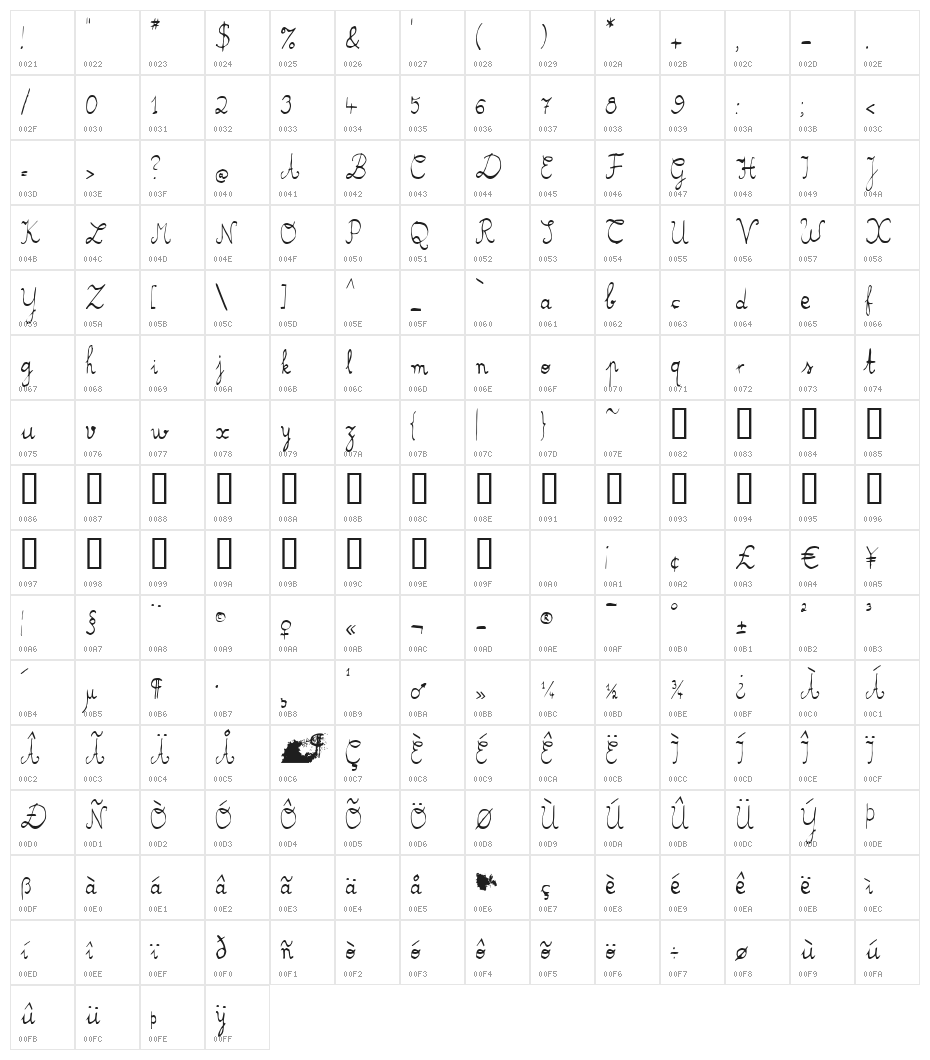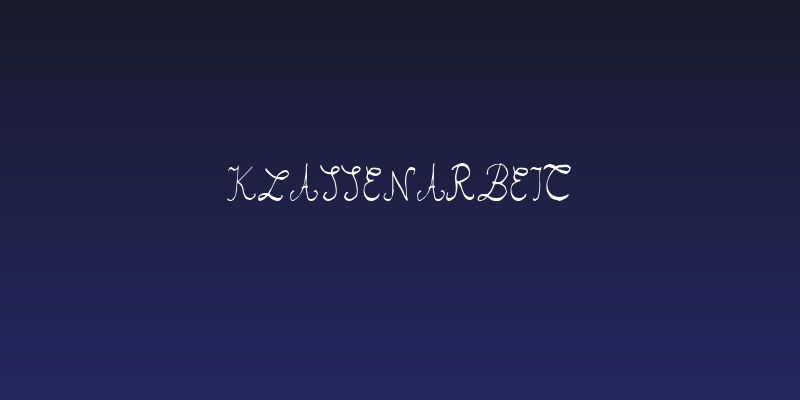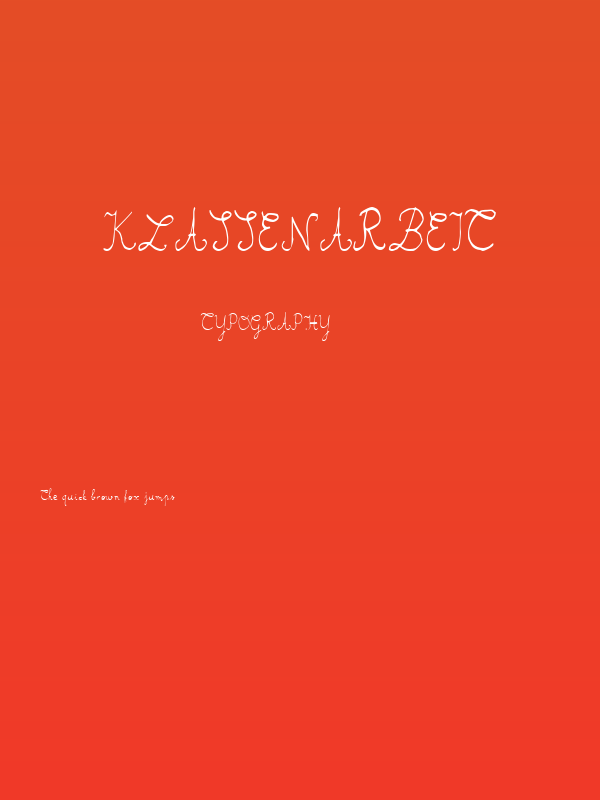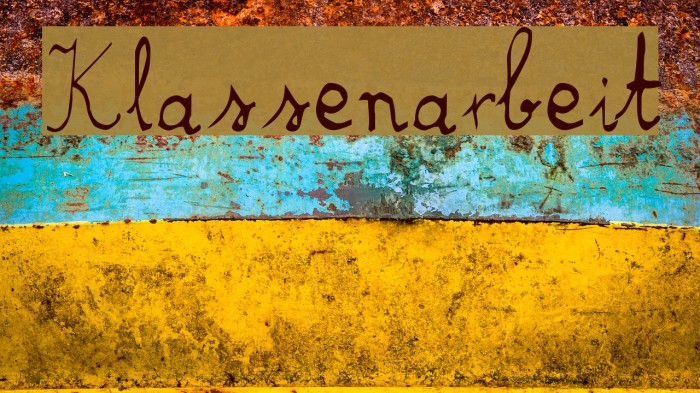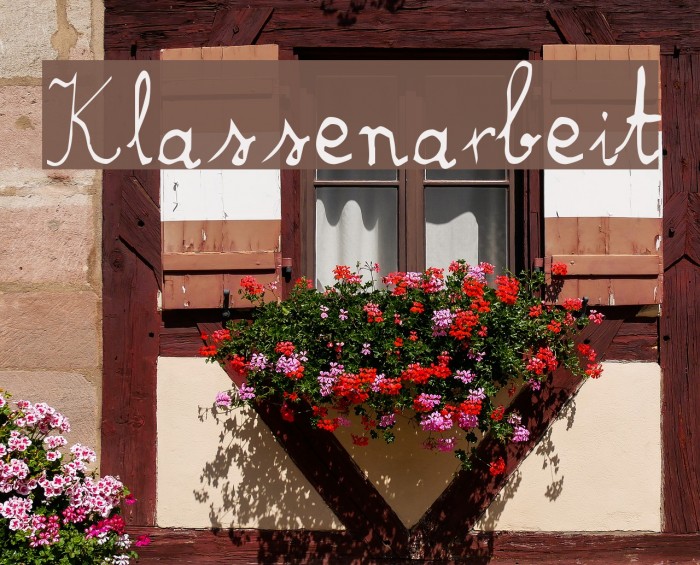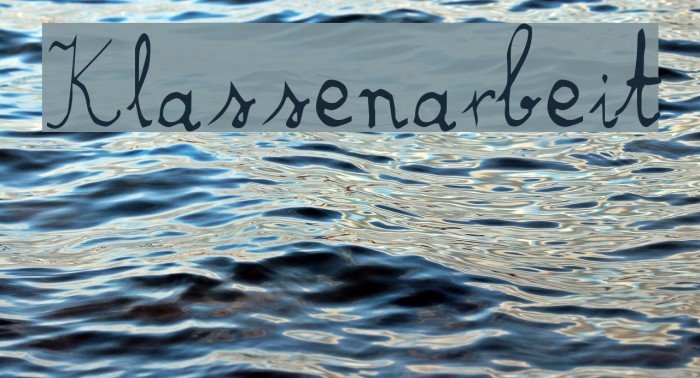
Klassenarbeit Font
Klassenarbeit Description
This font features a whimsical and playful script style, characterized by its fluid and flowing letterforms. The uppercase letters exhibit a unique blend of curves and sharp angles, giving them a distinctive and artistic appearance. The lowercase letters maintain a consistent flow, with some characters extending below the baseline, adding to the font's dynamic nature. The numerals are crafted with a similar flair, ensuring they complement the overall aesthetic. Special characters are thoughtfully designed, maintaining the font's cohesive style. This font's hand-drawn quality makes it ideal for projects that require a personal touch.